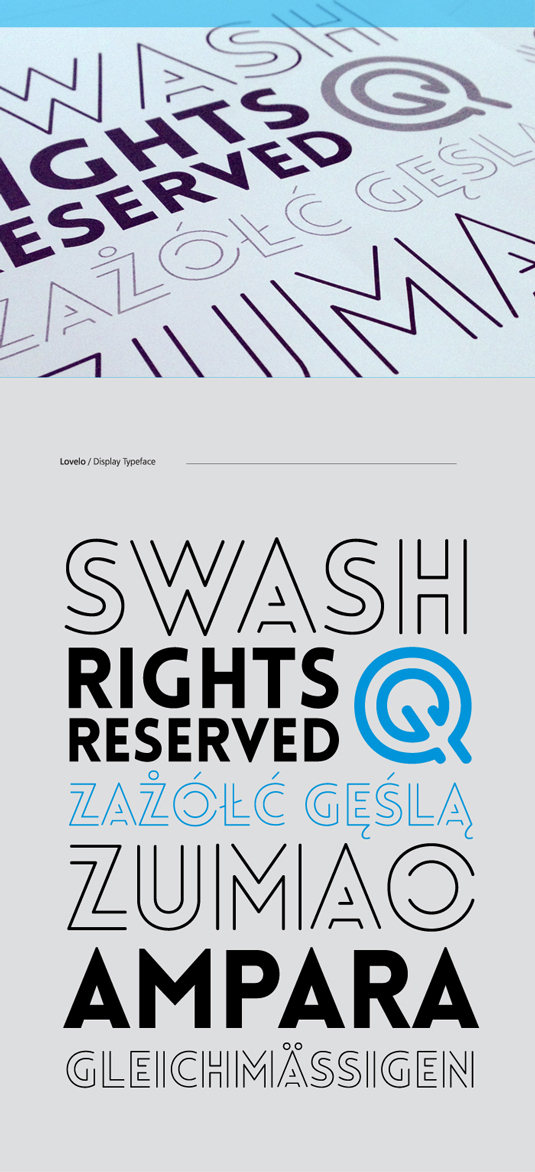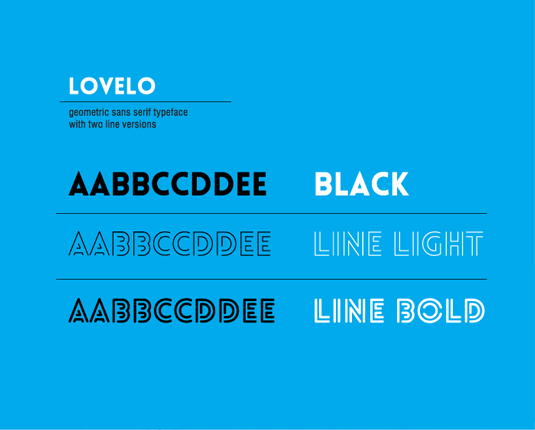
Font of the day: Lovelo
Every day we showcase the best fonts on the web. Today it's Lovelo by Hans Renzler, which is totally free to download.
Lovelo by Hans Renzler
Art director Hans Renzler is behind today's typeface of choice, Lovelo. A gorgeous display typeface, Lovelo is a geometric, sans serif design with two line versions.